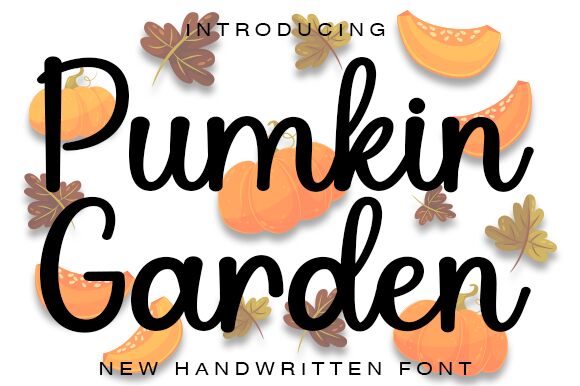
Pumkin Garden
Pumkin Garden by Wahyu Studio is a handwritten font that exudes a casual yet sophisticated charm, capturing the essence of personal touch in every stroke. Its fluidity and natural variation in letterforms convey warmth and approachability, making it an ideal choice for designs that require an intimate and inviting feel.
The font's aesthetic is reminiscent of elegant cursive writing found in personal notes and invitations. The subtle playfulness of the letters adds to its versatile appeal, perfectly suited for branding projects, packaging design, or any context where a human touch is desired to create a connection with the audience. Pumkin Garden offers a delightful balance between artisanal craftsmanship and modern design sensibilities.